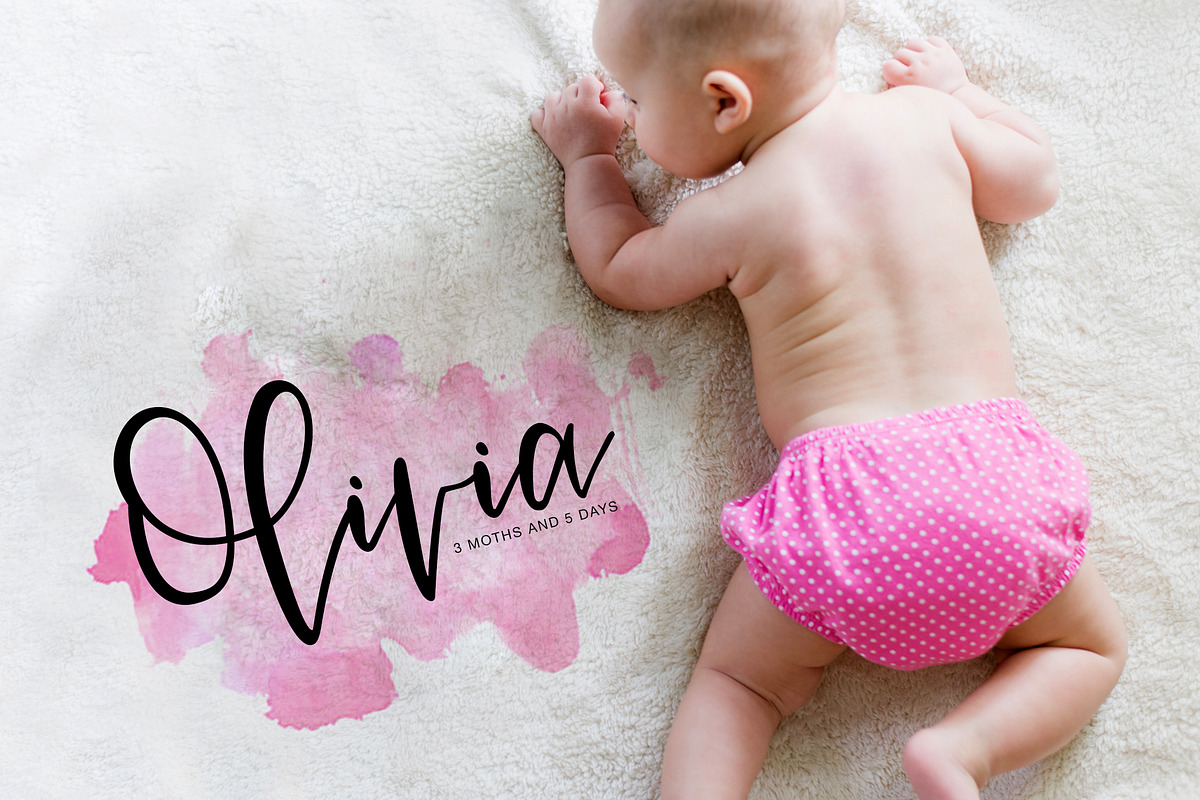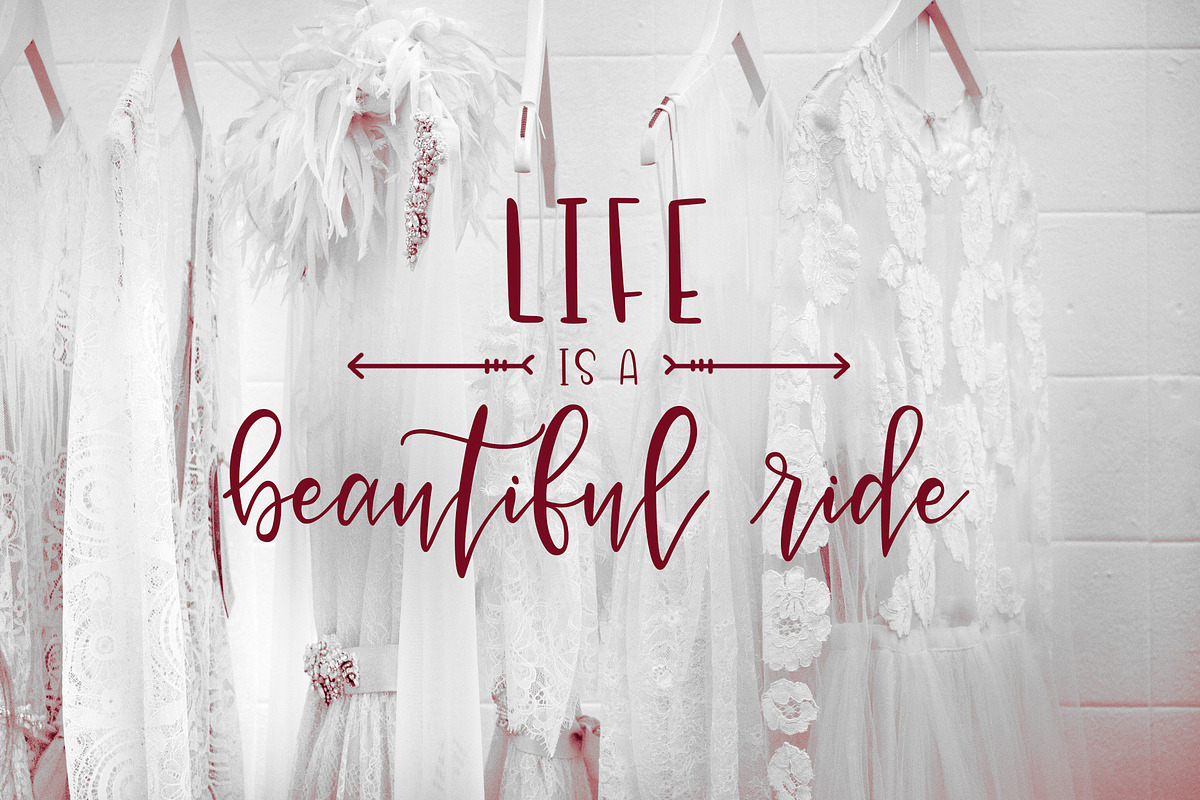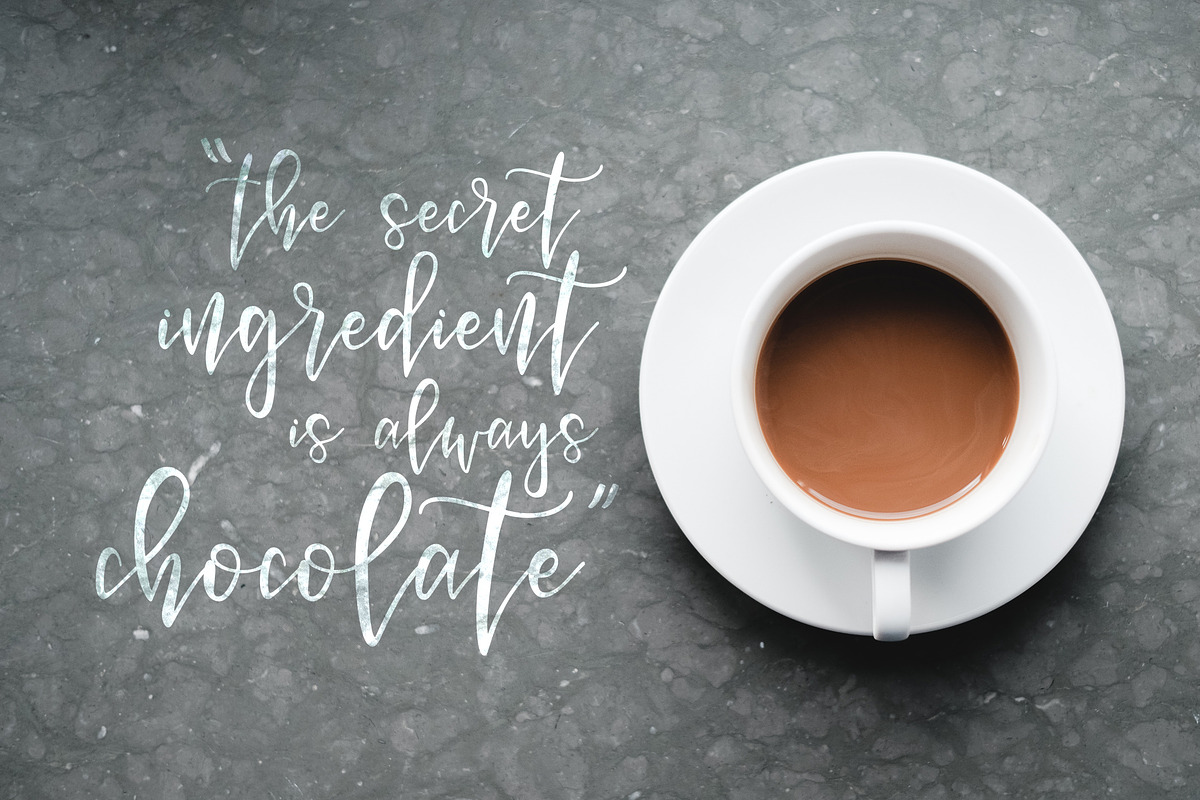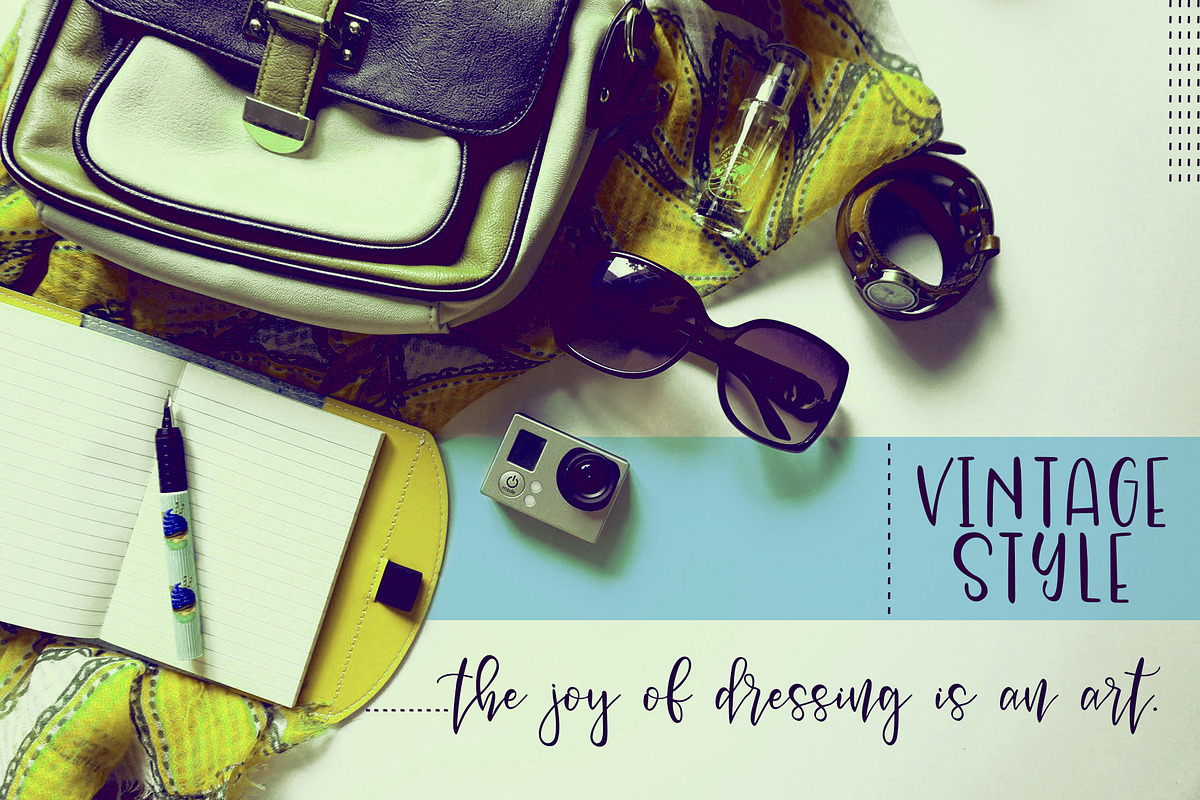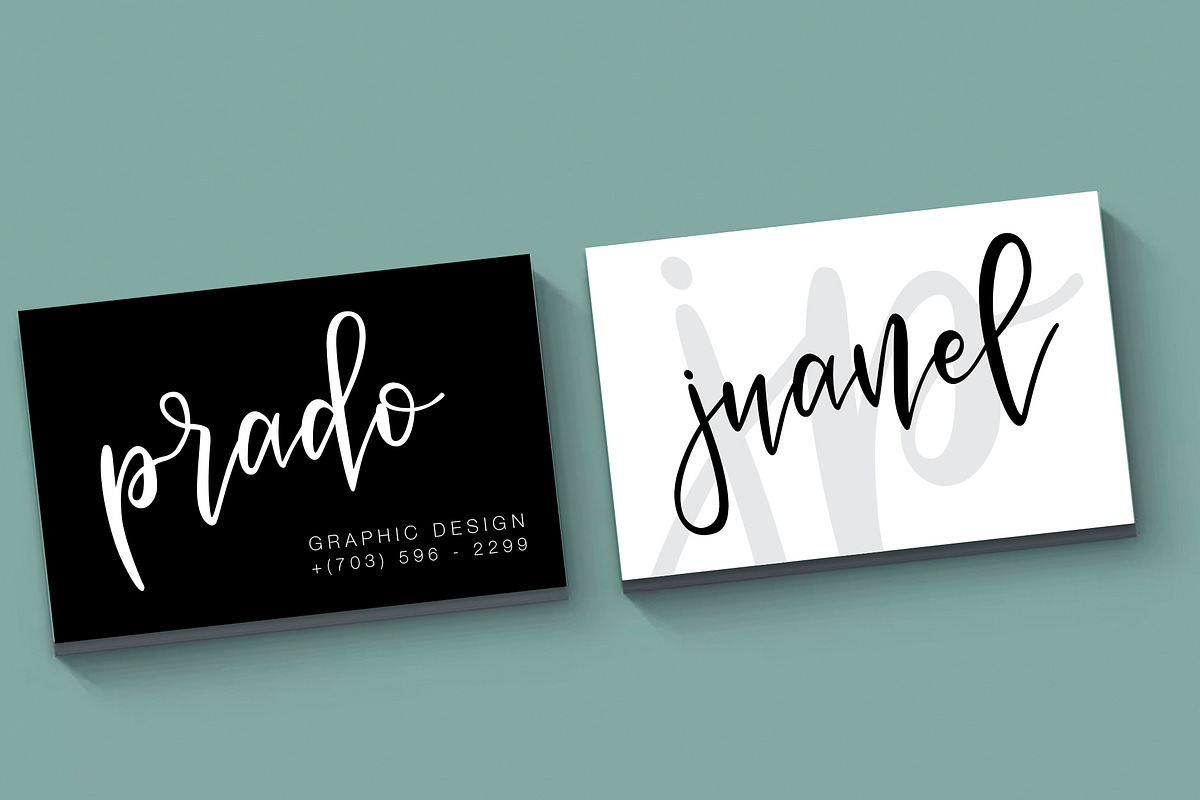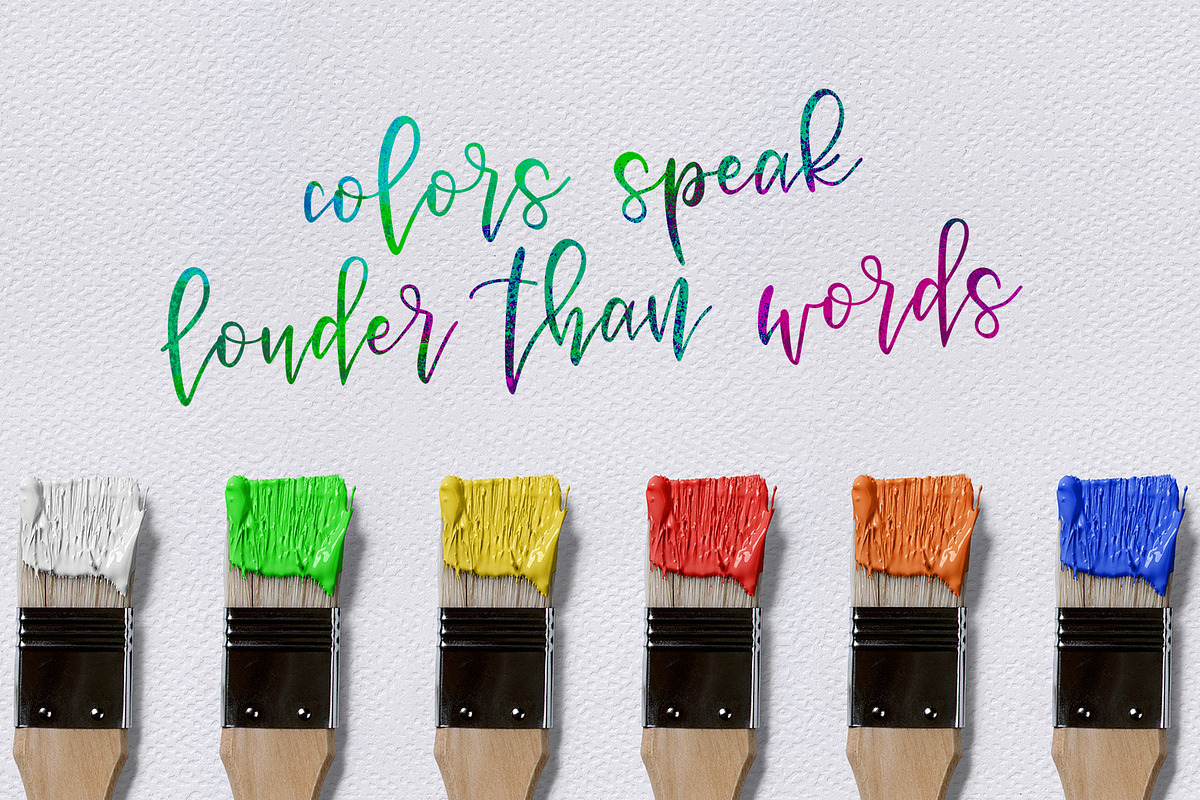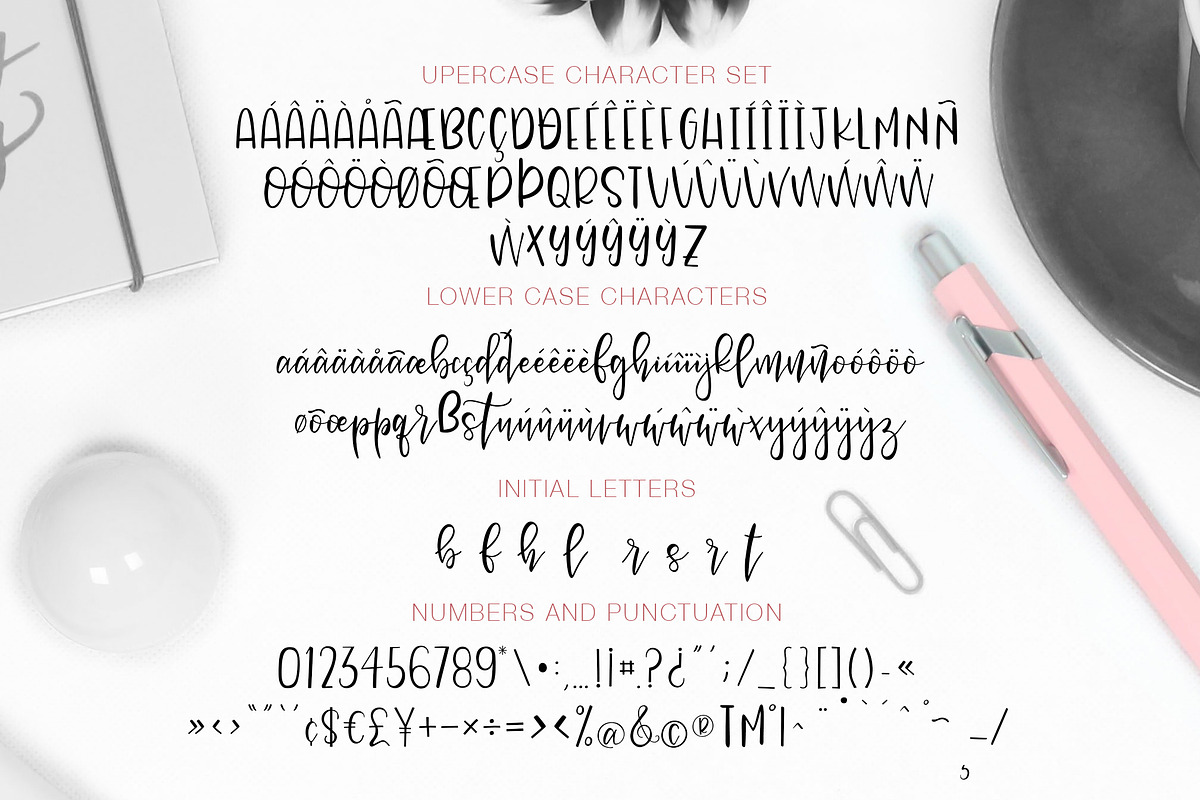
Vianette Hand Made Script Font
VIANETTE HAND MADE SCRIPT FONT
VIANETTE is a font created from hand made script strokes, with a brushpen, that where retouched and recreated on an ipad, to make more accented and sophisticated lines. Full of personality like it's name, VIANETTE is perfect font for wedding invites, love and family celebrations, and inspiration cards.
VIANETTE includes a full set of fancy uppercase and lowercase letters, numerals, a large range of punctuation and 33 ligatures, giving it a more human and original style. It has a bouncy style which makes it more dynamic, full of personality and crafted look.
Use it for headings, t-shirts, letterheads, labels, news, badges, invitations, personal cards, posters or product logos and names, VIANETTE font contains a number of ligatures and characters that will make your text unique giving it a realistic hand lettered style.
VIANETTE comes with multilingual support with accented characters for international (Western European, Central European and South Eastern European) users.